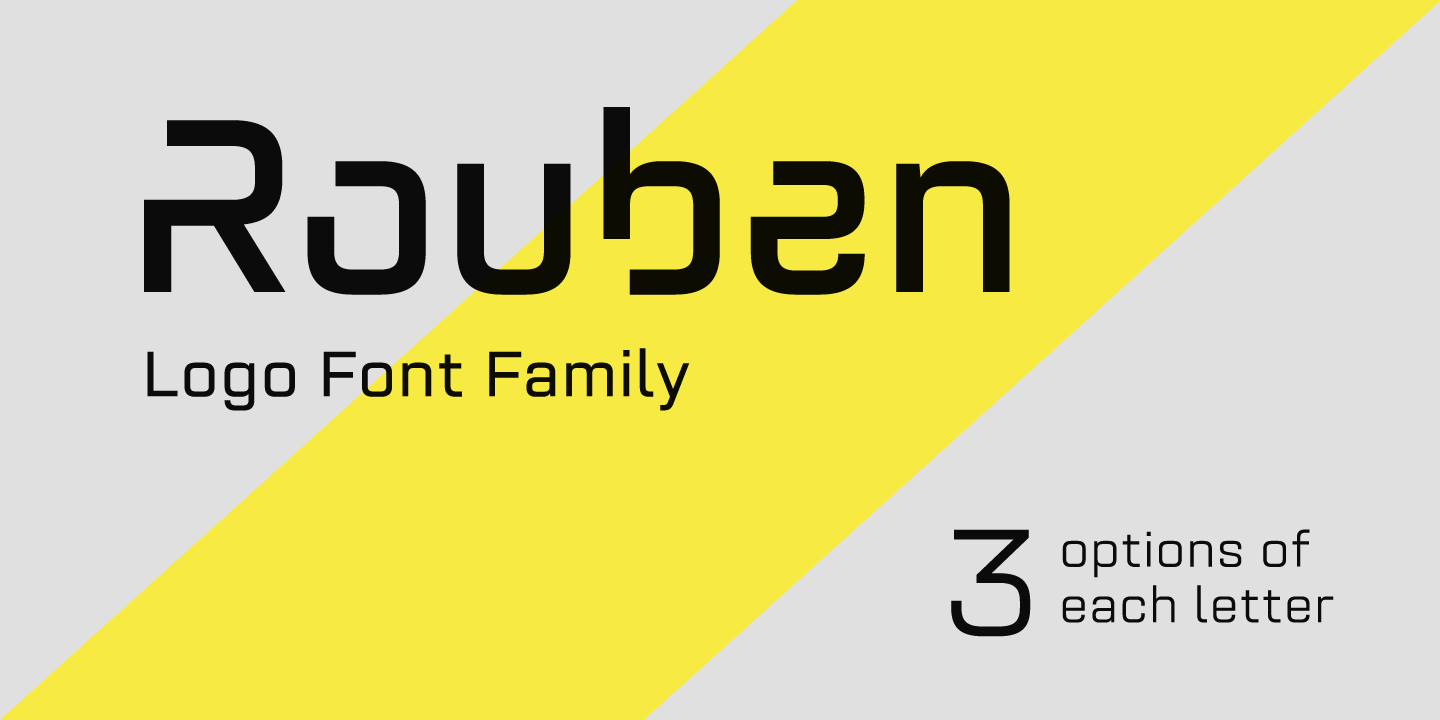
Rouben Font is an exceptional choice for projects that demand a blend of modern sophistication and approachable elegance. It's perfectly suited for professional branding, editorial layouts, website headlines, stylish posters, and any design where a refined yet distinctive touch is desired. Imagine it gracing the masthead of a contemporary magazine, bringing a sense of class to a corporate presentation, or adding an air of understated luxury to a product label. Its balanced aesthetic ensures your message is conveyed with clarity and a strong sense of aesthetic appeal.
What makes Rouben Font so exciting is its harmonious fusion of classic readability with subtle contemporary twists. Each character is meticulously designed to offer optimal legibility while retaining a unique personality that sets it apart. It’s more than just a typeface; it’s a versatile design tool that can effortlessly adapt to various styles, from minimalist to more decorative, always maintaining its inherent charm and professionalism. This font doesn't just present text; it elevates the entire visual experience, making your content feel more premium and impactful.
The Rouben Font family typically offers a comprehensive range of weights and styles to provide maximum design flexibility. You can expect to find standard options like Regular, Bold, and Italic, along with potentially Light or Semibold variations to cover all your design needs. These diverse weights allow for intricate typographic hierarchies, ensuring that Rouben Font Free Download can be the cornerstone of a cohesive and elegant visual identity across all your projects.